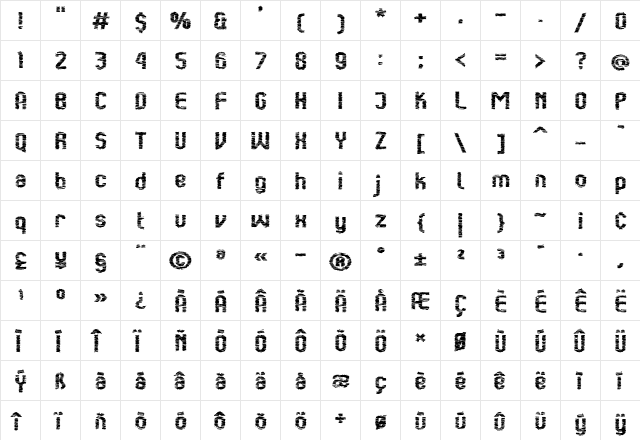
Kumba Scrawl SemiBold Expanded
Design Context for Kumba Typeface
Kumba is a composed and adaptable typeface that performs quietly and consistently across a wide range of design contexts. The heavy weight commands attention and anchors typographic hierarchies.